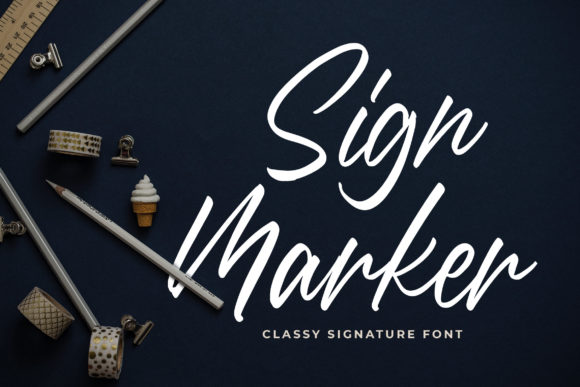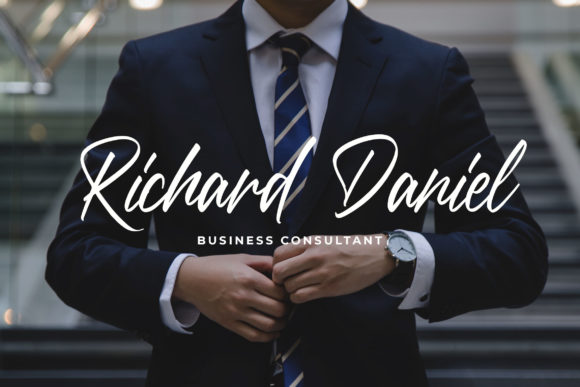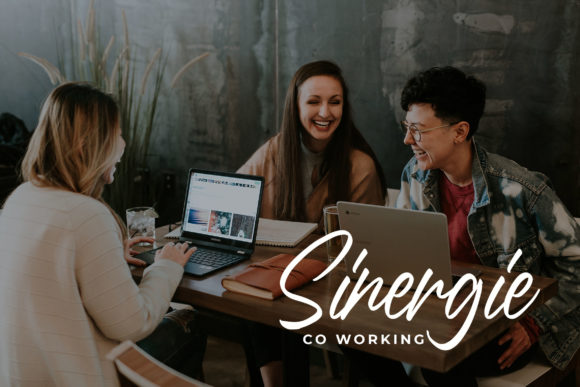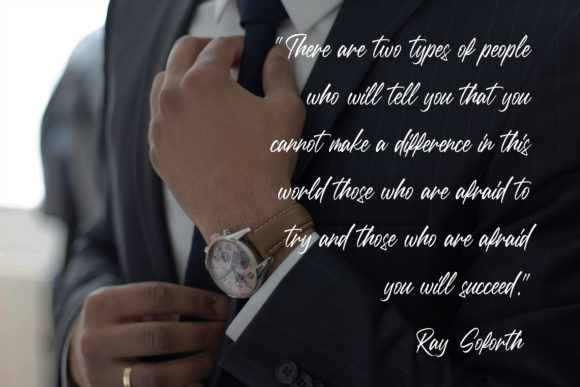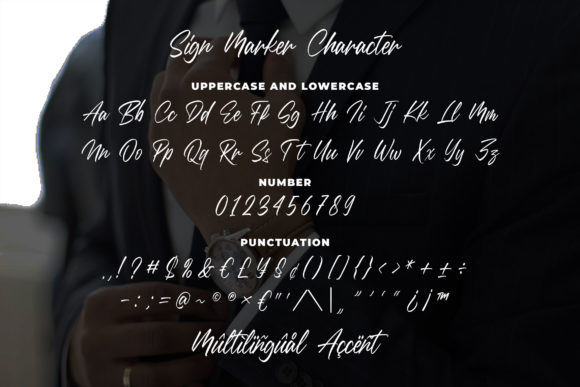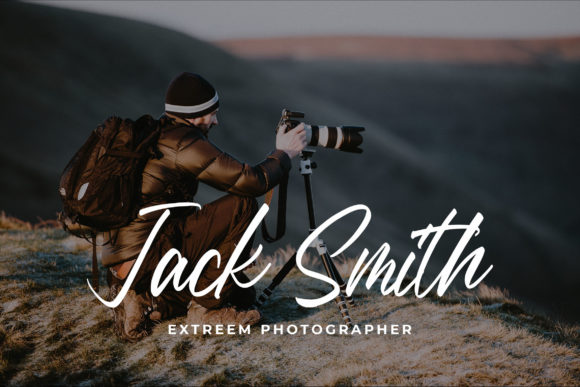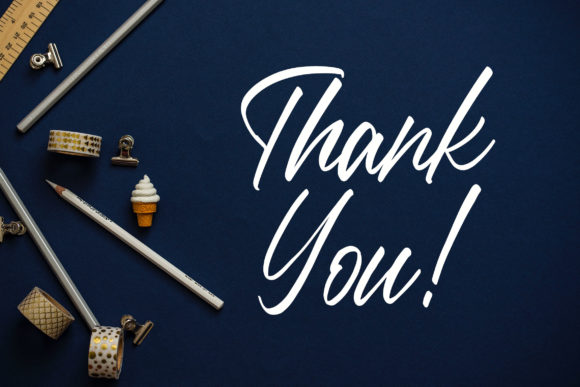
HomeScript FontsSign Marker Font Script Fonts Sign Marker Font FacebookXPinterestWhatsApp Sign Marker Font Poster 2 Sign Marker Font Poster 3 Sign Marker Font Poster 4 Sign Marker Font Poster 5 Sign Marker Font Poster 6 Sign Marker Font Poster 7 About Sign Marker Font Sign Marker is a sweet and charming script font with a unique style. Get inspired by its authentic look! DOWNLOAD NOW People also explored Rain Font Flamboyan Font Hamidal Font Samshen Font Outside Font Night Santa Font Homestay Font Hello Mother Font Natasha Monogram Font 381 0 TagsSign Marker Font Previous articleAffinity Grove FontNext articleSmergie Font LEAVE A REPLY Cancel reply Comment: Please enter your comment! Name:* Please enter your name here Email:* You have entered an incorrect email address! Please enter your email address here Website: Save my name, email, and website in this browser for the next time I comment. Personal Use Free Rolling Door Personal Use Free Read more about this font Bukhari Script Personal Use Free Read more about this font Casual Personal Use Free Read more about this font Laneway Personal Use Free Read more about this font BLOG 5 Fonts That Will Dominate Design Trends in 2026 5 Fonts for 2026 That Will Dominate Design Trends Typography plays a critical role in visual communication, and as we look ahead to 2026, it’s... Transform Your Website: Elevate Your Typography with 7 Best Web Font Generators Best Fonts for YouTube Videos: Make Your Thumbnails Stand Out To increase your work productivity, choose the most readable fonts.